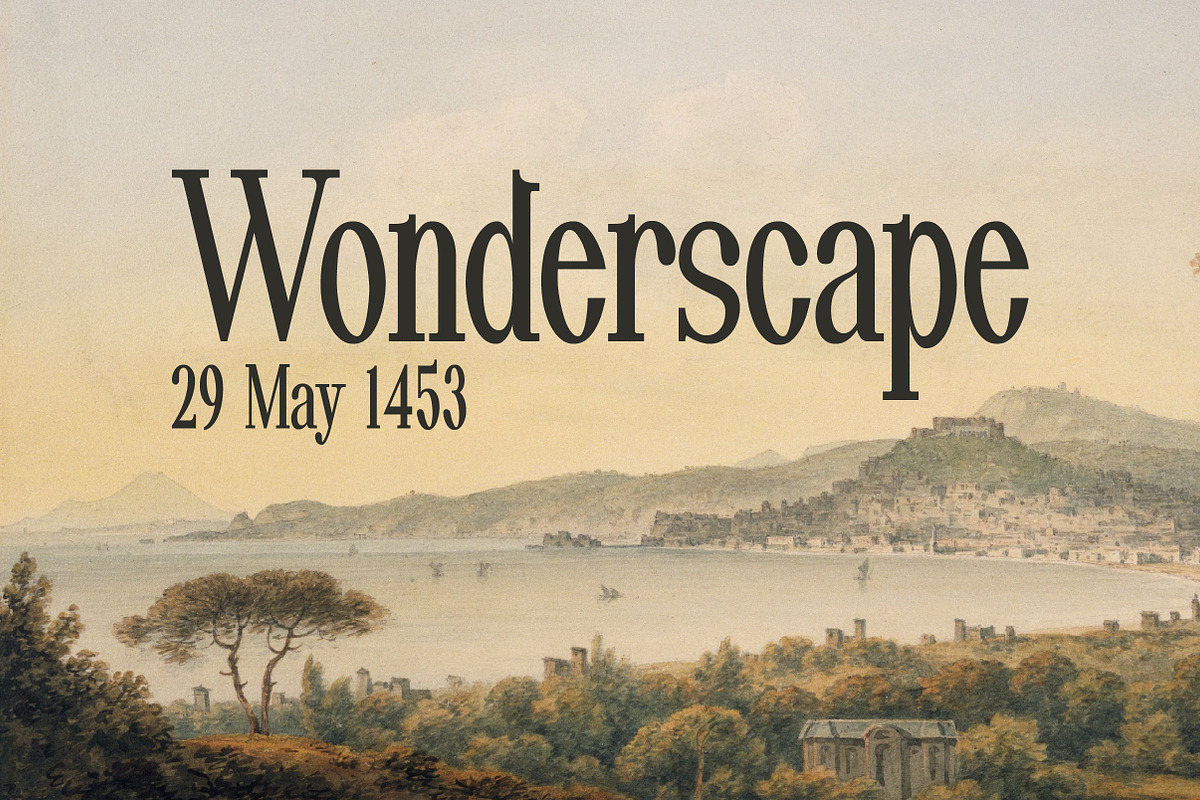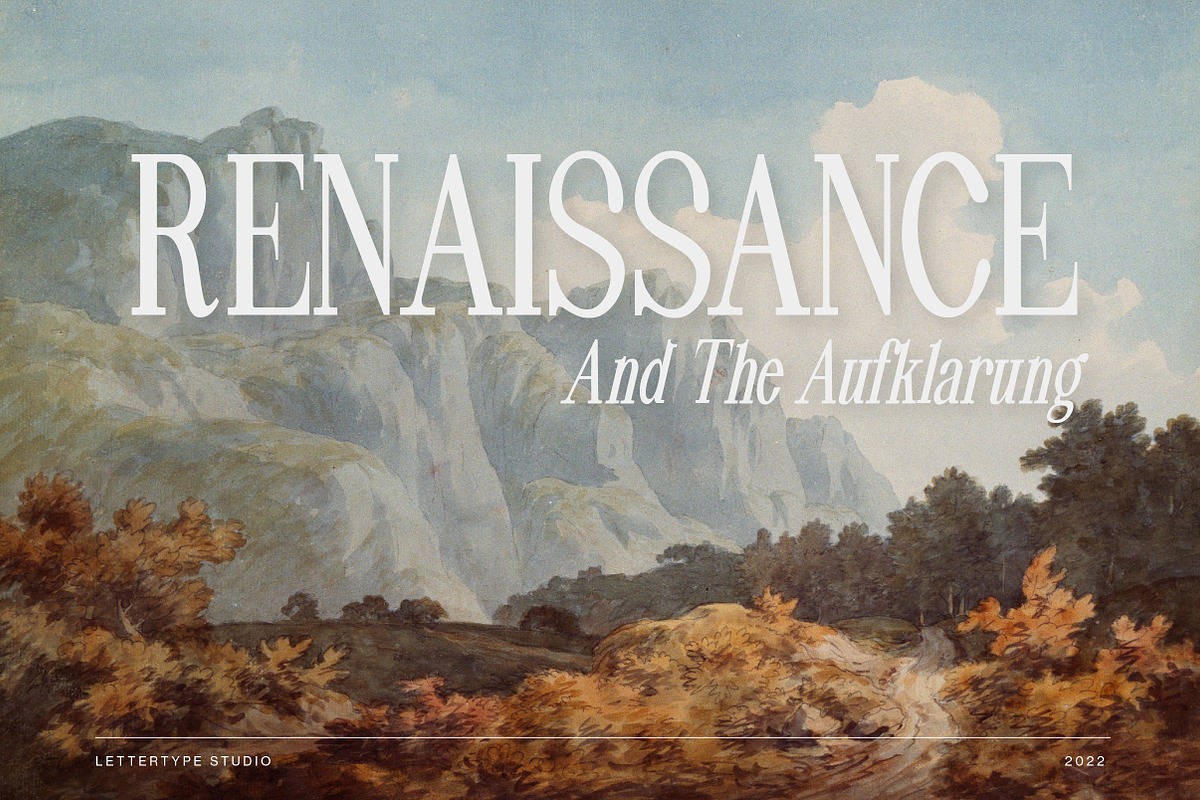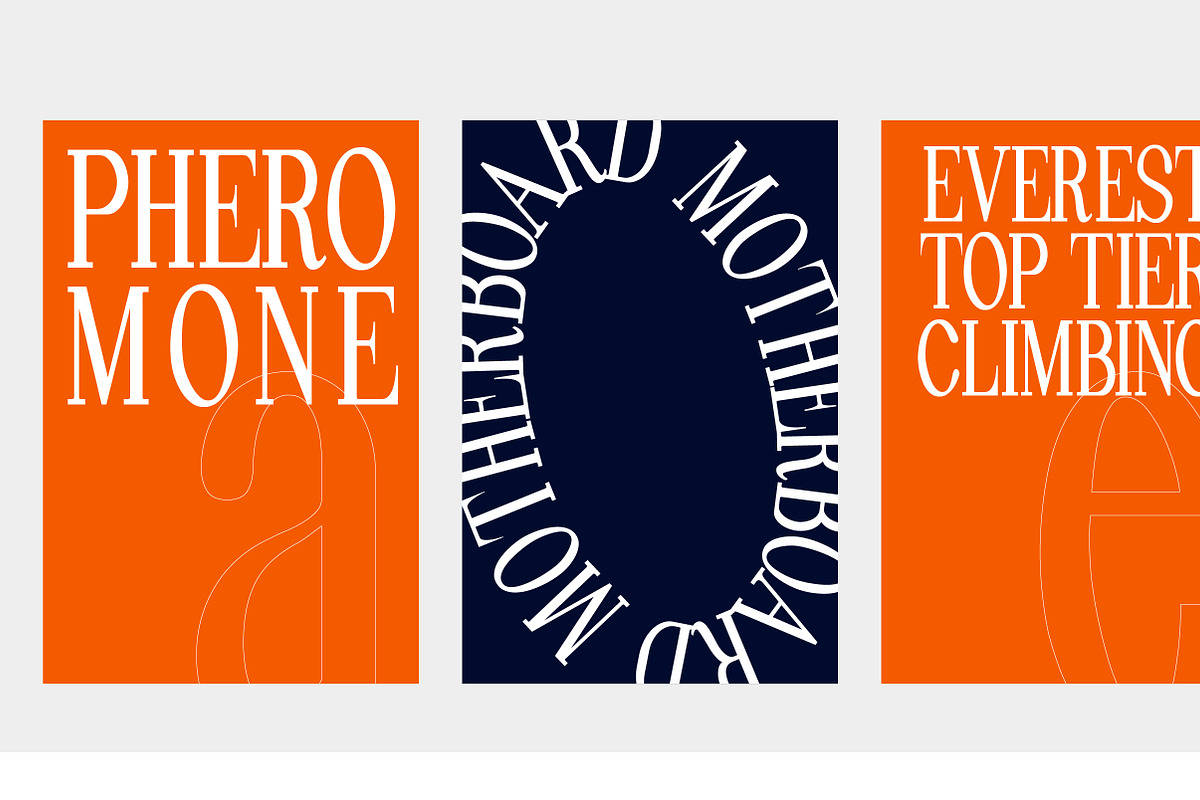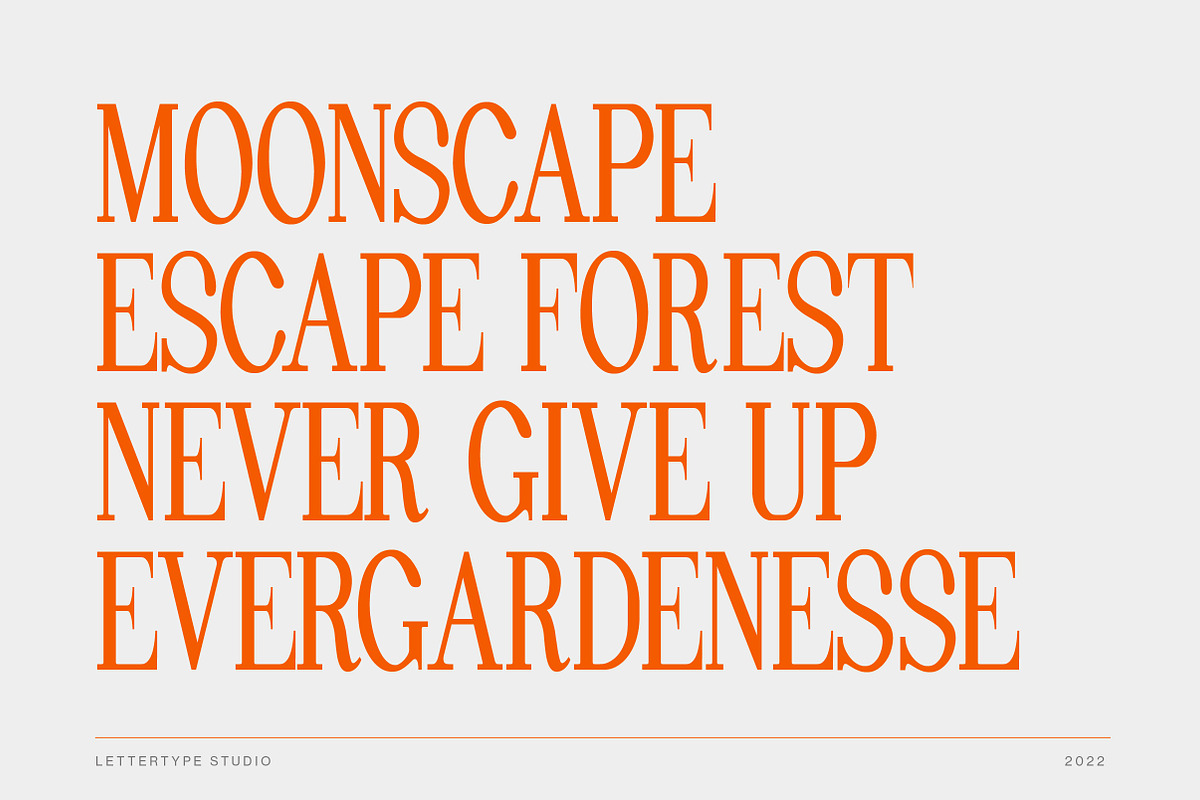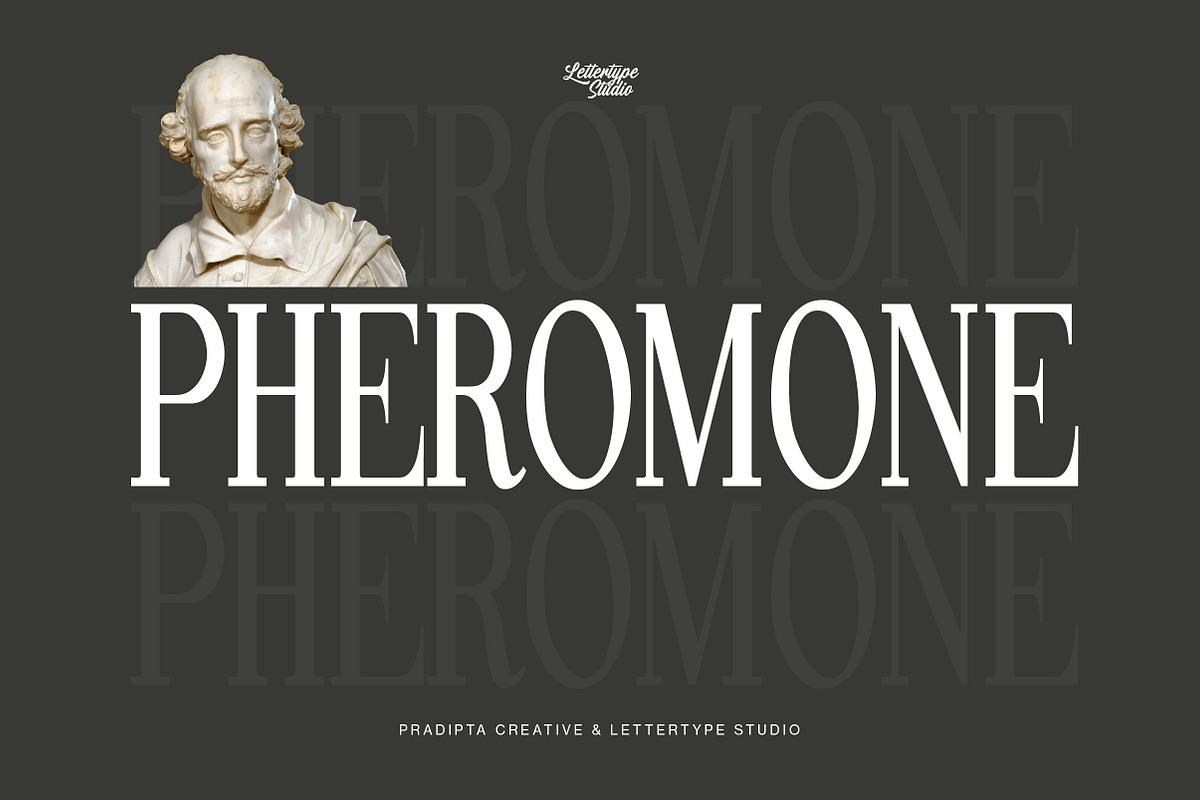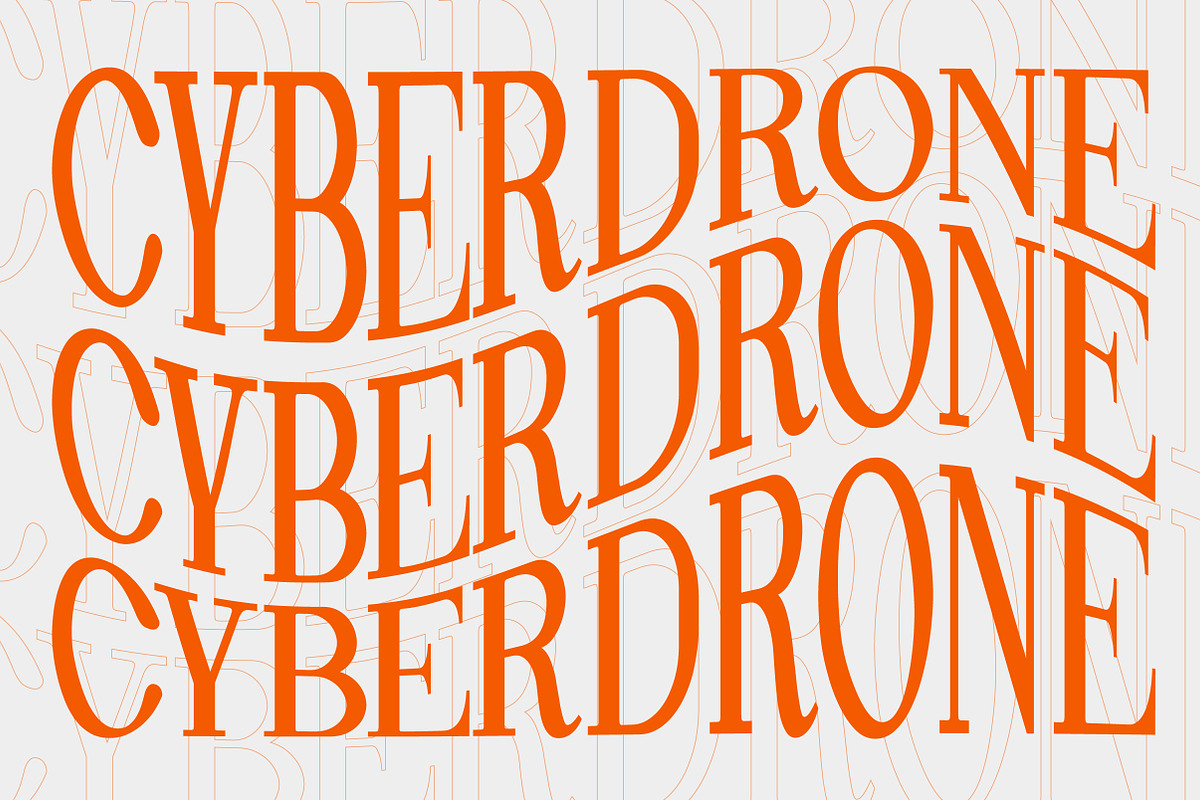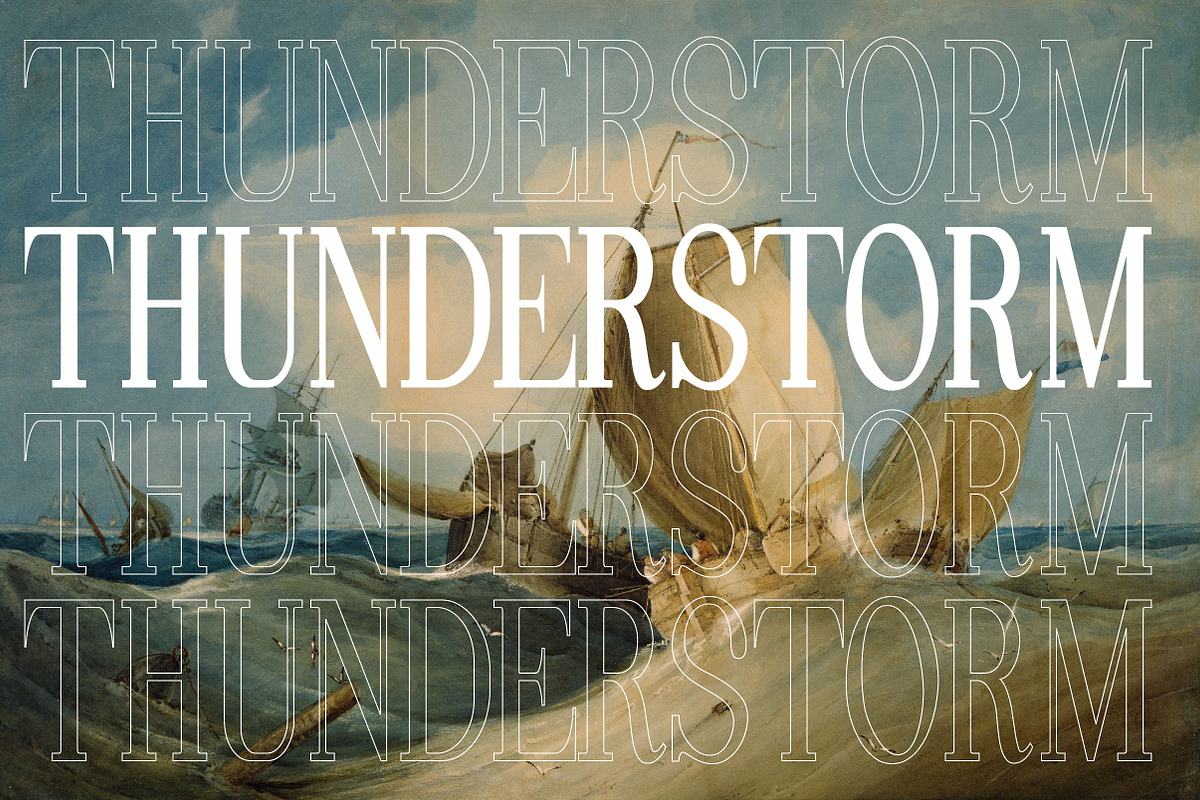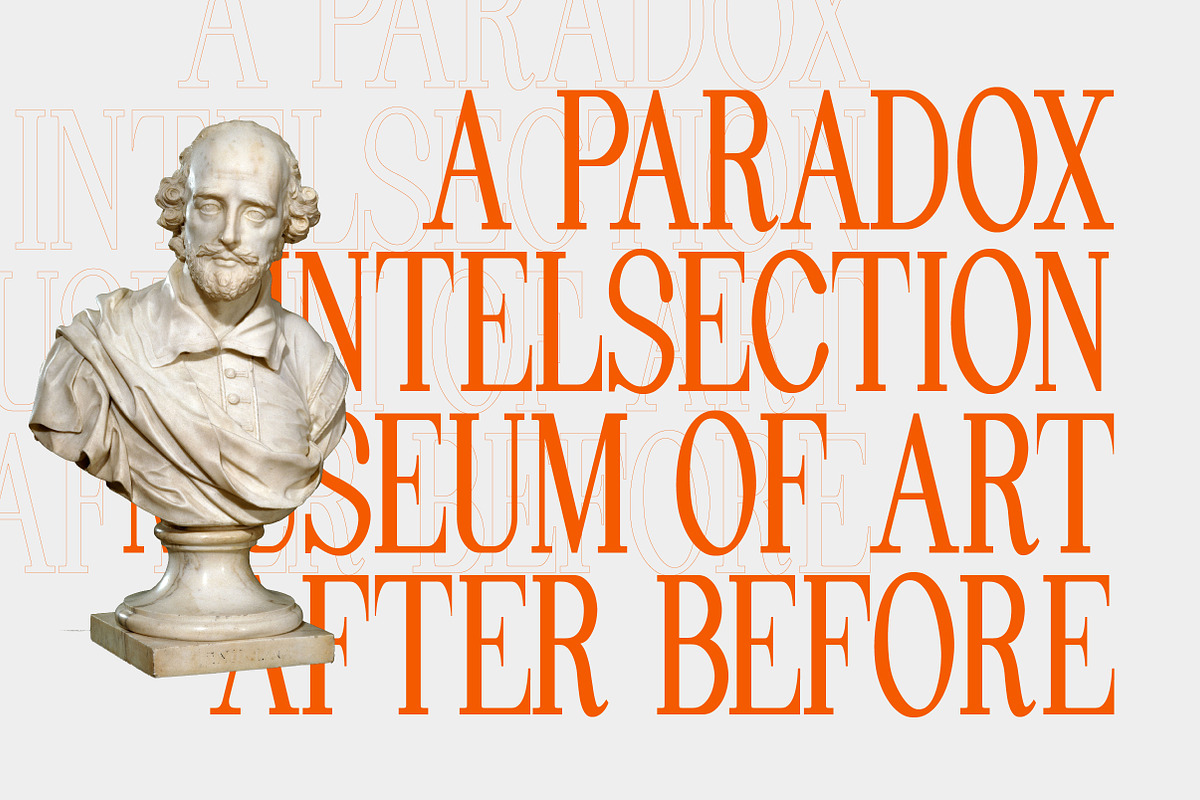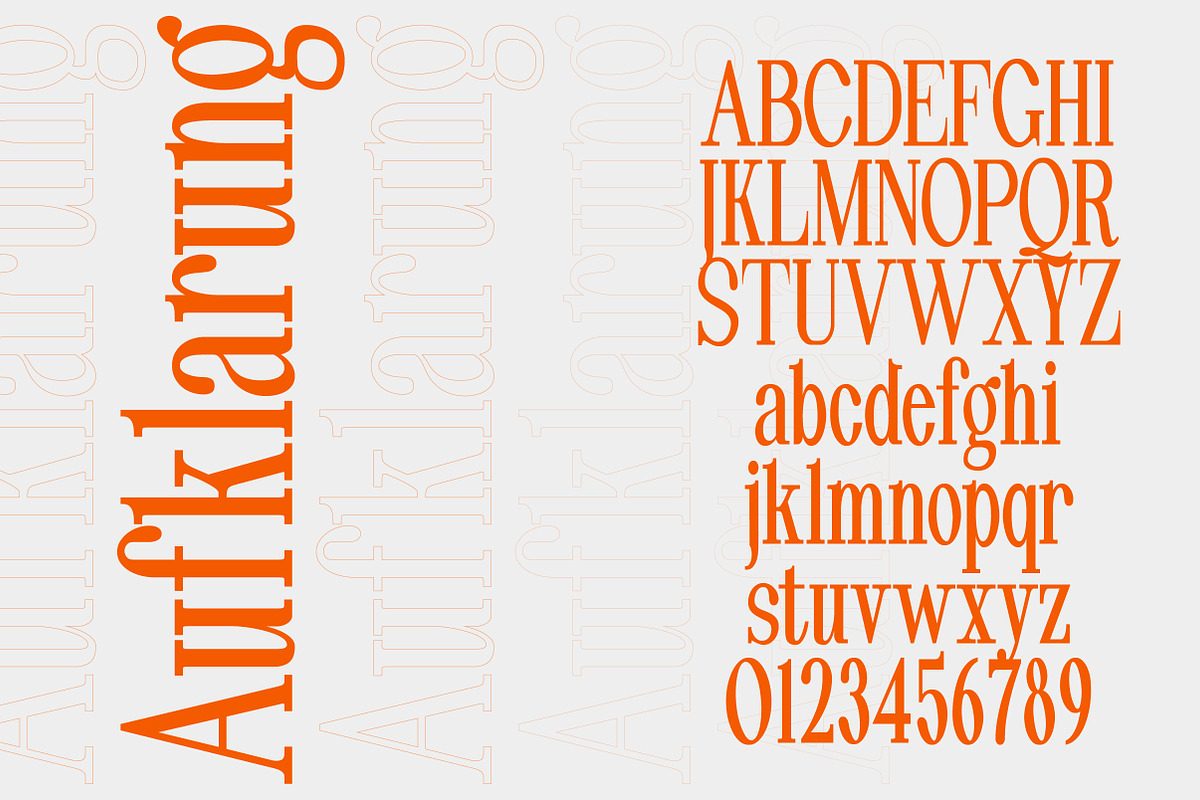
Pheromone | Modern Classic Serif
Pheromone is a high-contrast serif font with a mixed modern and classic style. And here is the Ultimate version https://crmrkt.com/QgQJaD
Pheromone is our masterpiece modern serif font and is perfect be your headline font. The core of Pheromone is a condensed style, this is why can be perfect to be your headline.
Pheromone will be perfect for your headline, logo design, branding, clothing, signage, posters, wedding invitations, cosmetics or fashion and so much more!
Pheromone will help your project or brand have a unique vintage, classic look, and stand out.
Pheromone Comes With:
Lowercase, Uppercase, and Ligatures
Accented Characters
Pheromone Font Family (Regular, Italic, SemiBold, & SemiBold Italic)
Multiple Languages Supported